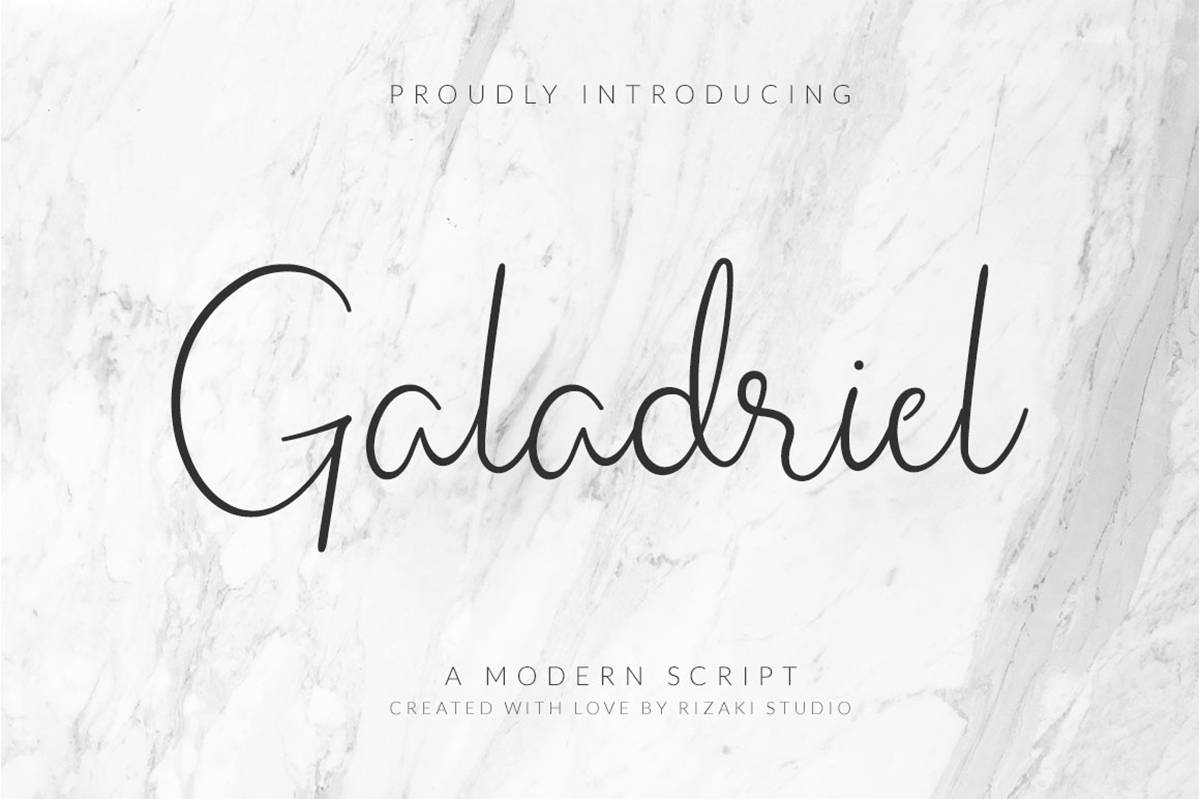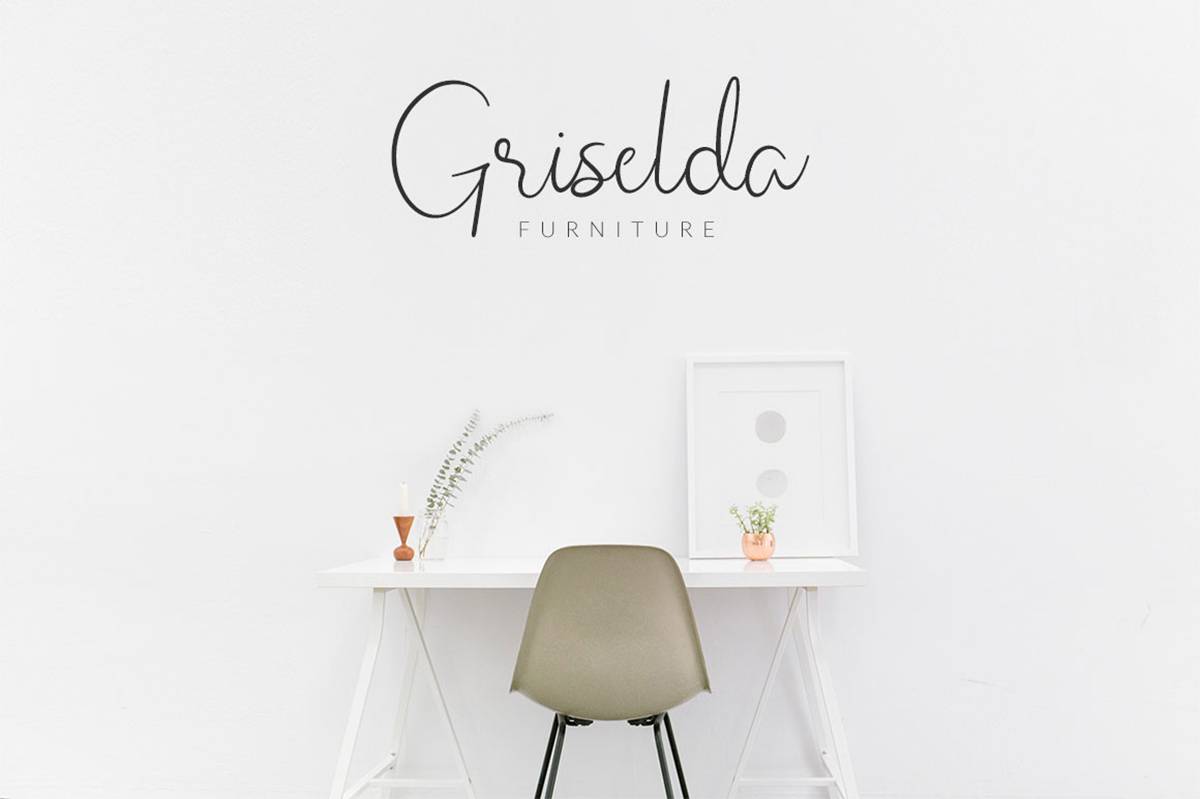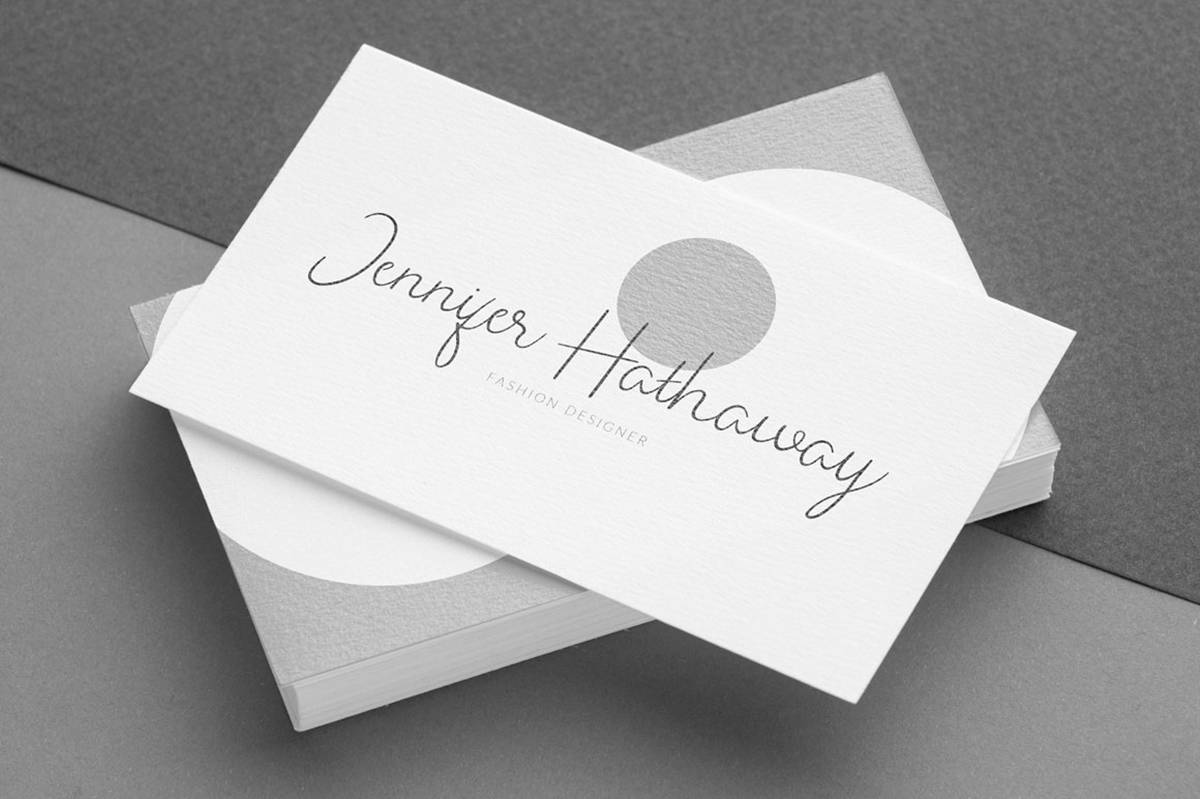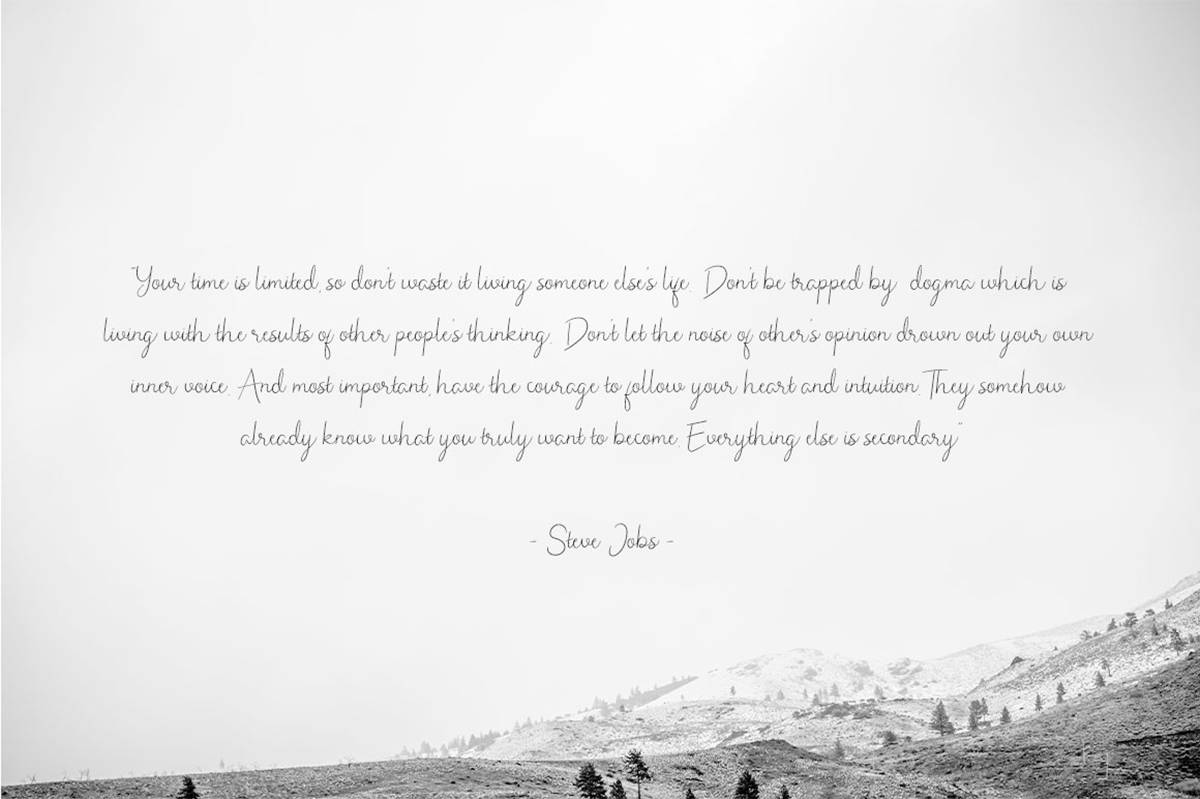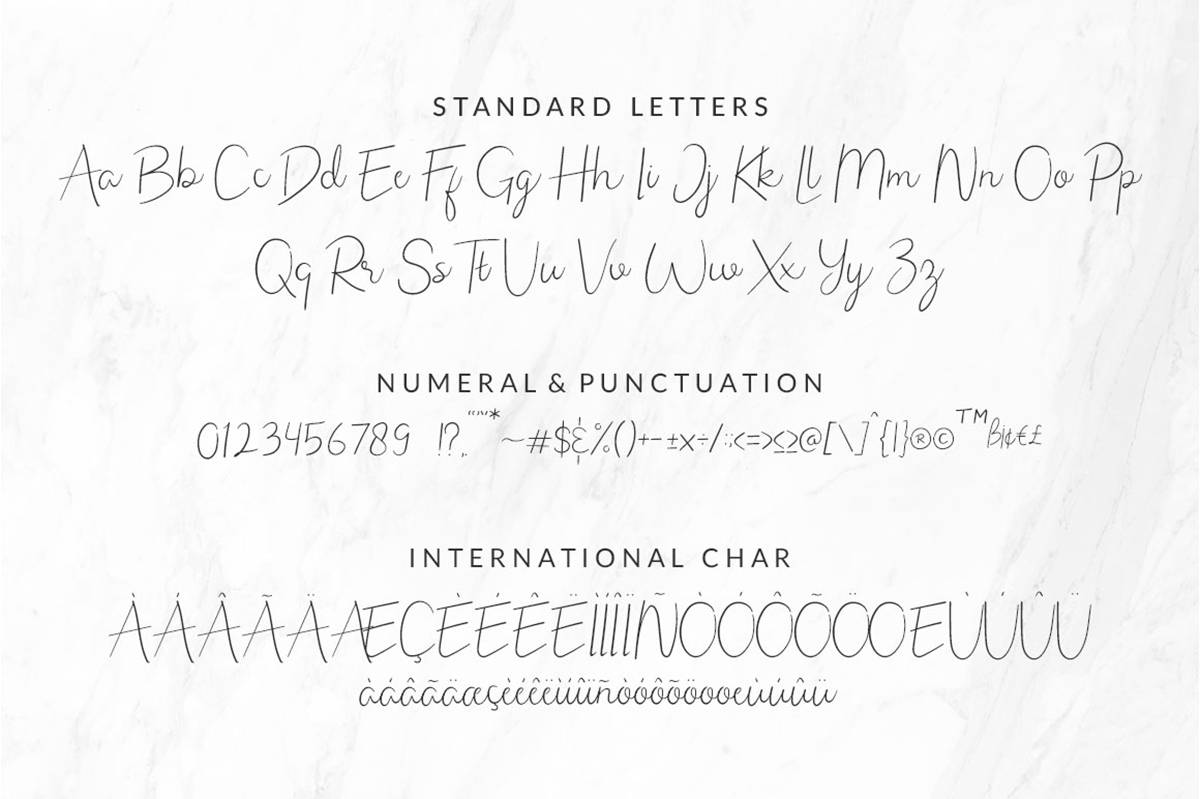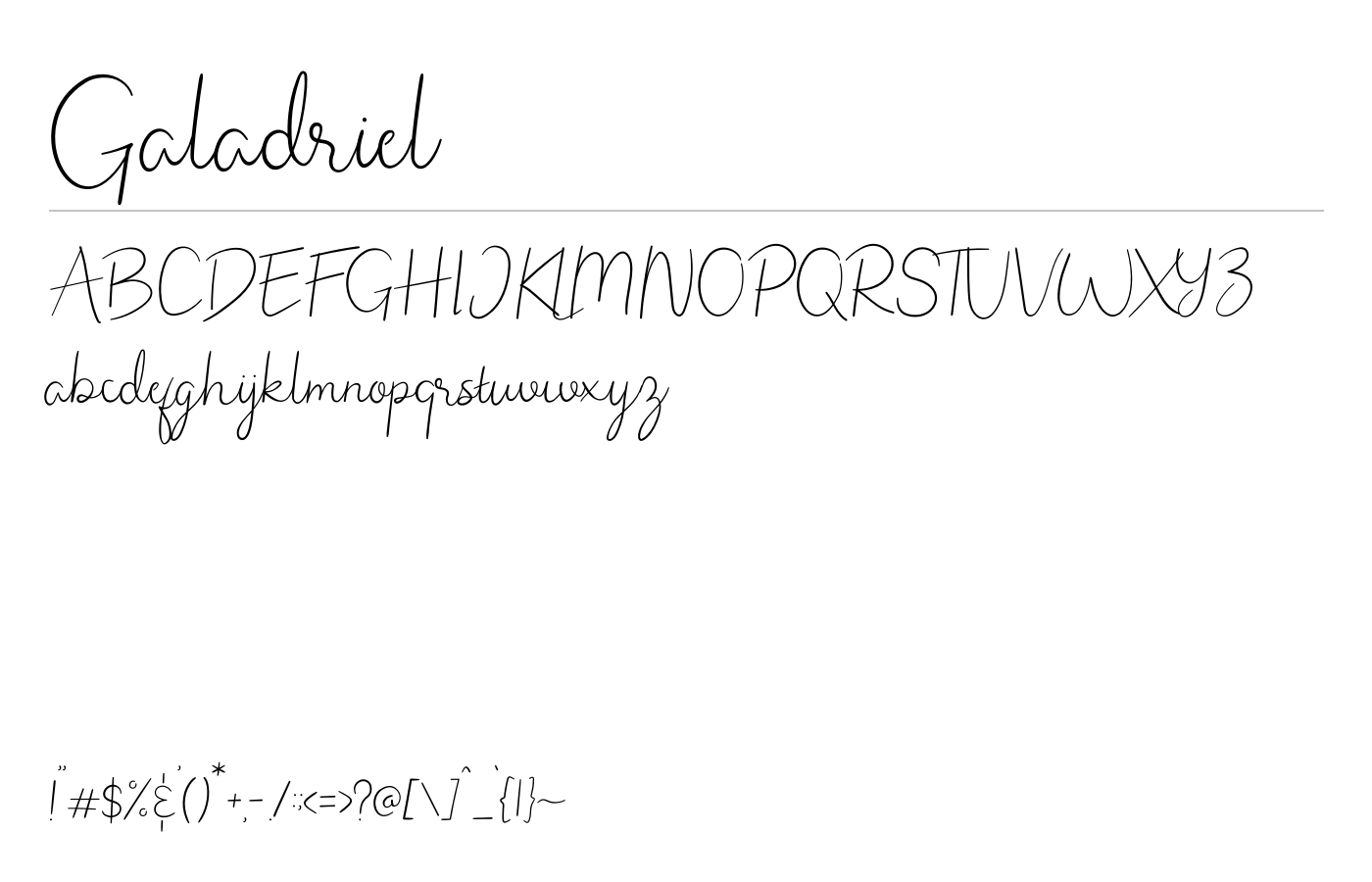
Galadriel is a delicate, handwritten script font characterized by its thin strokes and airy, flowing letterforms that create an elegant yet approachable feel. Its narrow width and tall x-height enhance readability while maintaining a personal, whimsical charm, making it ideal for invitations, branding, and creative projects that seek a graceful, intimate touch. This font works best in settings where a gentle, sophisticated style is desired without sacrificing clarity.
Galadriel Font
About Galadriel Font
| Font family | Galadriel Font |
| Designer | Muhammad Rifqi Zakiri |
| Trademark | Rizaki Studio |